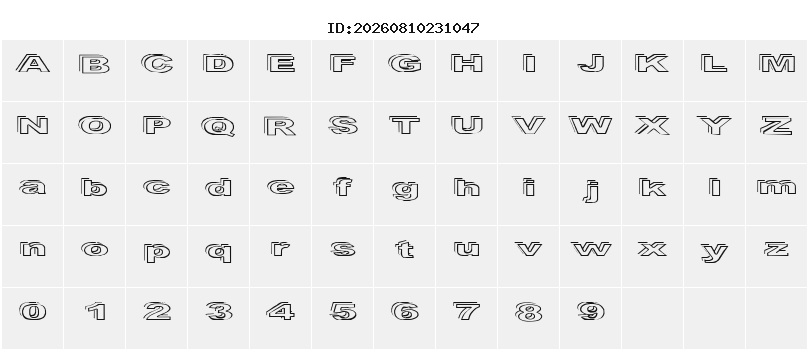
About Ryckindor.ttf
Ryckindor.ttf is a modern, elegant sans-serif font designed for ultimate readability and visual harmony. Perfect for branding, headlines, web design, and print materials.